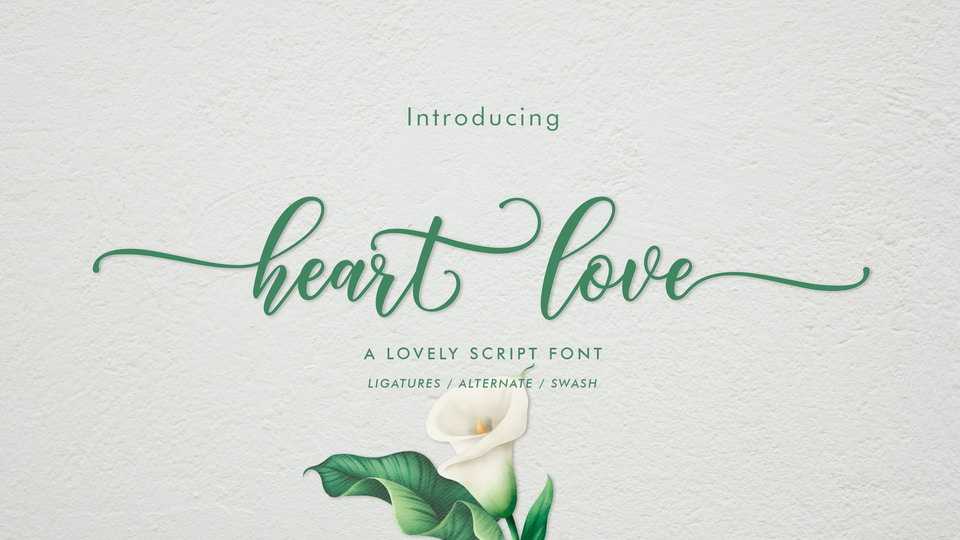
Download Heart Love font, a beautiful modern calligraphy script with a romantic feel. Heart Love is ideal for Valentine’s cards, wedding design, branding, merchandise, social media and more.
Designer: Amar Lettering